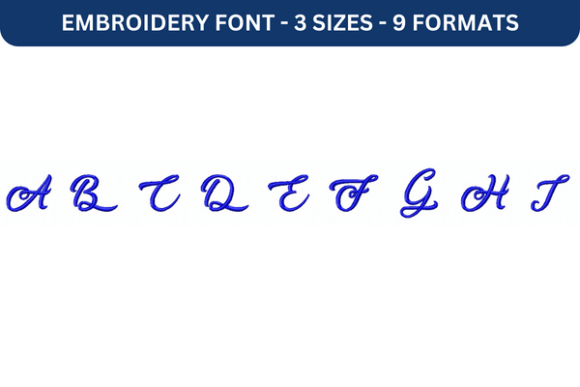
Midnight Bangkok Font Upper a to I
The Midnight Bangkok Font Upper a to I is a versatile machine embroidery design that offers a modern and elegant touch to any handmade product. Its clean lines and sophisticated style make it ideal for a variety of craft fair and handmade market items, especially those targeting a Back To School audience or those looking for premium embroidery options.
First Impressions: A Modern and Elegant Choice
From the first glance, Midnight Bangkok Font Upper a to I exudes a sense of modernity and class. It doesn’t feel overly decorative or whimsical, but rather refined and professional. This makes it a strong choice for craft fair sellers who want to present a polished and cohesive brand image. The font has a slightly stylized edge, which adds visual interest without being too bold or distracting.
It’s not the kind of font you’d use for a rustic or farmhouse-themed project, but it works exceptionally well on clean, minimalist designs. Whether you're creating tote bag design or apron embroidery, this font maintains its clarity and sophistication across different fabric types and sizes.
Performance on Key Craft Fair Products
When considering where Midnight Bangkok Font Upper a to I would stand out in a booth display, it shines on products like tea towel embroidery, pillow covers, and market bags. These items often serve as conversation starters, and the font’s elegance can catch a customer’s eye quickly.
On embroidered patches, the font holds up well, especially when used in larger sizes. It also works as a small accent on fabric pouches or caps, adding a subtle yet noticeable detail. For handmade gifts, the font’s readability and visual appeal make it a great option for personalized items like name tags or quote-based designs.
As a digital embroidery file, it’s likely to be easy to work with, though users should test it on various fabrics to ensure compatibility. The font’s structure suggests it will perform well on both light and dark fabrics, depending on thread colors chosen.
Practical Selling and Production Considerations
One of the biggest advantages of Midnight Bangkok Font Upper a to I is its versatility. It can function as a small accent or a large focal point, making it adaptable for different product styles. This flexibility is crucial for craft fair sellers who need to maximize their inventory and showcase a range of items.
In terms of photography for Etsy listings or printable mockups, the font’s clean lines and lack of excessive detailing make it highly photogenic. It won’t lose clarity when scaled down, which is important for online buyers who may not see the finished product in person.
For batch production, the design’s simplicity helps reduce stitch density, which can save time and material costs. However, users should still check the hoop size requirements and confirm that the design fits within standard embroidery hoops. Stabilizer use is recommended for textured towels or thick fabrics to prevent puckering or distortion.
Careful-Use Notes for Embroidery Designers
While Midnight Bangkok Font Upper a to I is generally straightforward, there are a few areas to watch for. Tiny details in the letters may not show up clearly on certain fabrics, so it’s best to avoid using it for extremely small text unless the fabric is smooth and the thread contrast is high.
Curved surfaces, such as those found on caps, may require some adjustment in the design to maintain even spacing and legibility. Dark fabrics can be a challenge if the thread color isn’t sufficiently contrasting, so testing on multiple fabric swatches is advisable.
Users should also be cautious about using the font at smaller sizes, as the stroke width might become too thin and lose definition. For commercial embroidery projects, confirming the licensing terms before selling finished products is essential to avoid legal issues.
Impact on Visual Appeal and Customer Engagement
Midnight Bangkok Font Upper a to I contributes significantly to the visual appeal of any handmade product. Its clean and modern look elevates the perceived value of items like tote bag design or apron embroidery, making them more attractive to customers looking for quality and style.
On a craft fair booth, this font can help create a stronger brand presence. When used consistently across different products, it reinforces a cohesive aesthetic that draws attention and encourages purchases. Customers often notice the level of detail in embroidery, and this font provides a professional finish that speaks to handmade quality.
As an Etsy seller or small shop product creator, using this font can enhance buyer engagement by offering a unique and stylish option for personalization. Whether it's for a name, date, or quote, the font adds a touch of elegance that many customers will appreciate.
Embroidery Designer Tips for Success
To get the most out of Midnight Bangkok Font Upper a to I, start by testing it on scrap fabric. This will help you understand how it looks on different materials and identify any potential issues early on. Checking thread colors against the fabric is also important to ensure visibility and contrast.
Creating at least one real mockup—such as an embroidered patch or tote bag—is a smart step to visualize how the final product will look. Comparing fabric colors and thread choices will further refine the outcome, ensuring that the design meets your expectations and those of your customers.